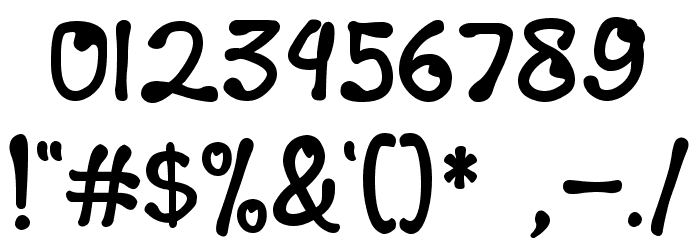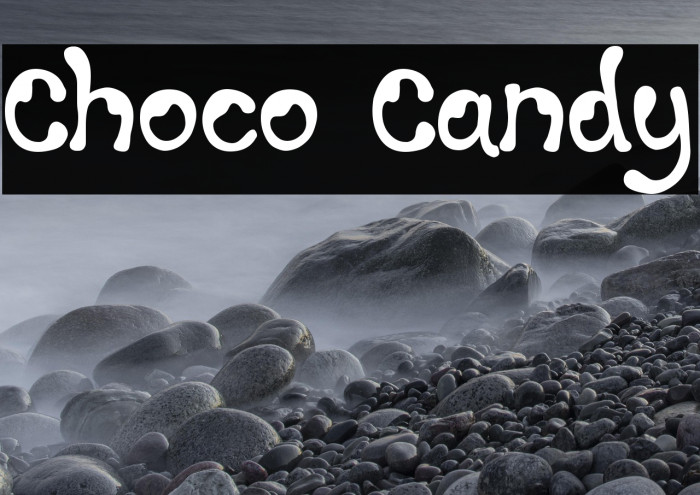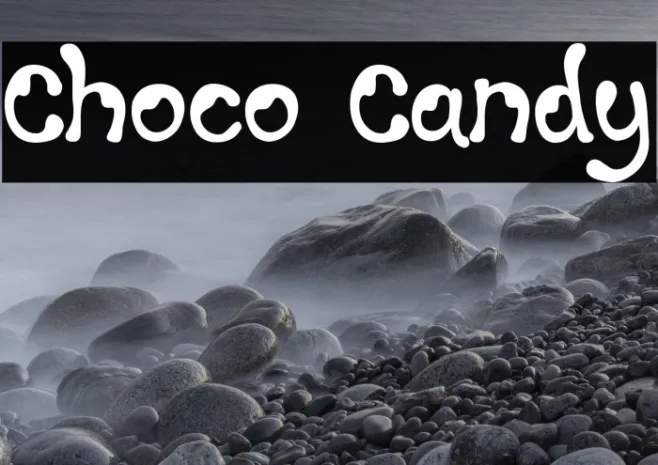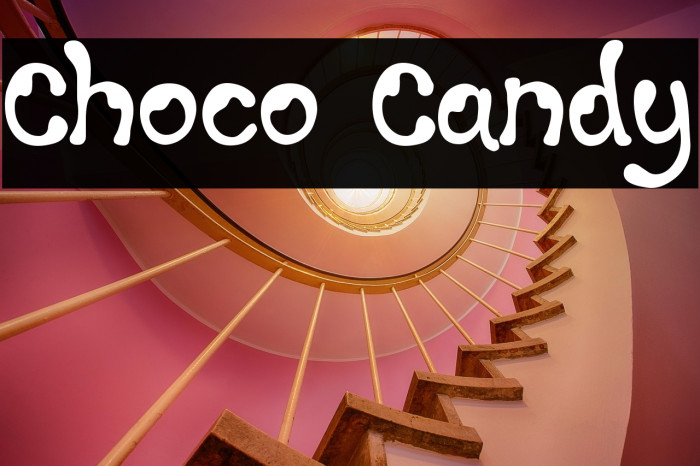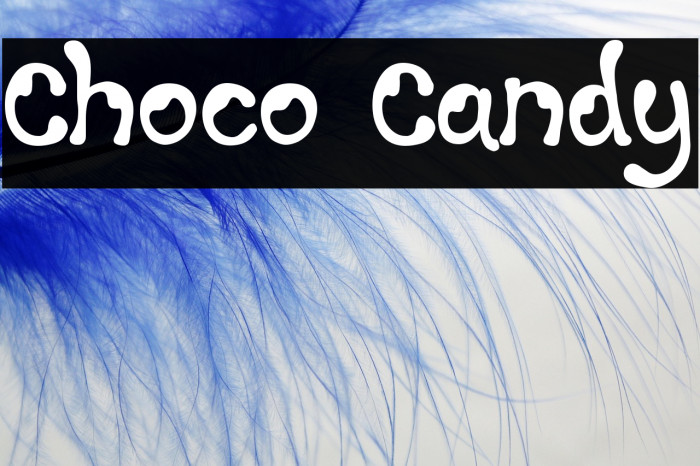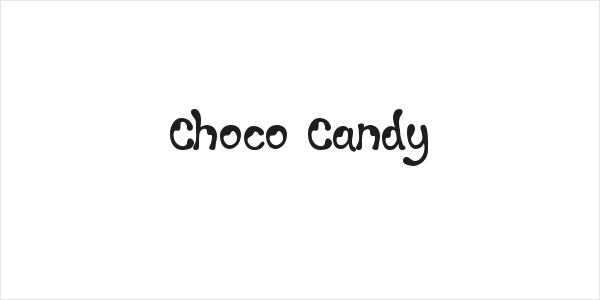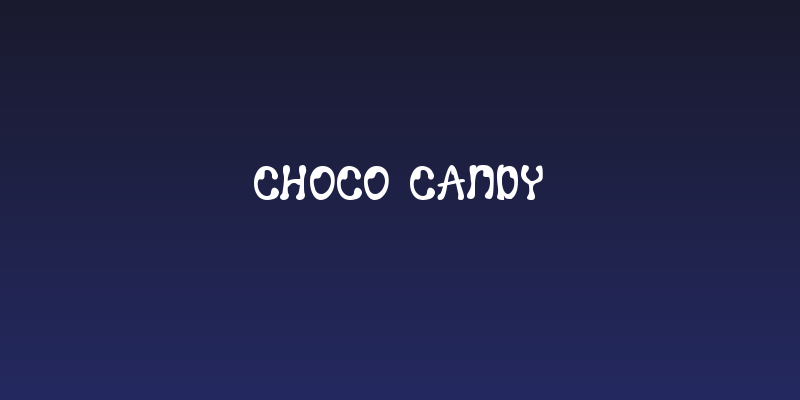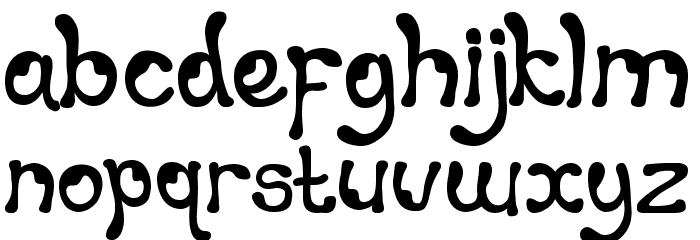
Choco Candy Font
Choco Candy Description
This playful and whimsical font features rounded, bubbly characters that evoke a sense of fun and creativity. The letters are bold and have a hand-drawn appearance, with uneven strokes that add to its charm. The font includes both uppercase and lowercase letters, as well as numbers and a variety of special characters. Its unique style makes it perfect for projects that require a touch of personality and flair. The overall design is reminiscent of candy or chocolate, making it ideal for themes related to sweets, children, or anything lighthearted.
| Overall Style | Whimsical, Playful |
| Proposed Projects | Ideal for children's book covers, playful branding, party invitations, and confectionery packaging. |